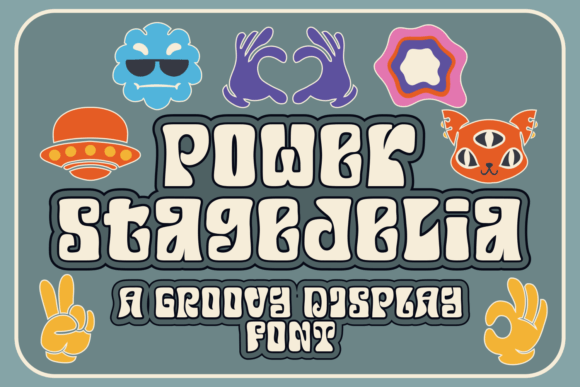
Unleash the captivating allure of Power Stagedelia, a transcendent display font that evokes the groovy 70s era. Immerse yourself in a world of retro aesthetics, where psychedelic vibes blend seamlessly with an undeniable cool factor. This font is your ultimate gateway to design brilliance, beckoning you to explore a myriad of creative possibilities.
With Power Stagedelia, you'll embark on a typographic odyssey like no other. Its meticulously crafted characters exude personality, inviting you to create designs that resonate with your audience. Whether it's a blog, poster, or social media post, Power Stagedelia will elevate your words and ignite imaginations.
There's a reason why Power Stagedelia is the font of choice for discerning designers and typography enthusiasts. It's a font that speaks to the soul, evoking emotions and capturing attention. Its psychedelic undertones add a touch of intrigue and mystique, while its incredibly cool vibe effortlessly elevates your designs.
Don't settle for ordinary fonts that blend into the background. Embrace the transformative power of Power Stagedelia and watch your designs come alive. Let your creativity soar as you explore the endless possibilities this font offers. From whimsical blog posts to eye-catching posters, Power Stagedelia is your key to unlocking design magic.
Join the typography revolution and experience the sheer joy of creating with Power Stagedelia. Let your designs shine with retro charm and psychedelic flair. It's time to unleash your inner artist and let your imagination run wild. Power Stagedelia is more than just a font; it's a portal to a world of limitless creative expression.